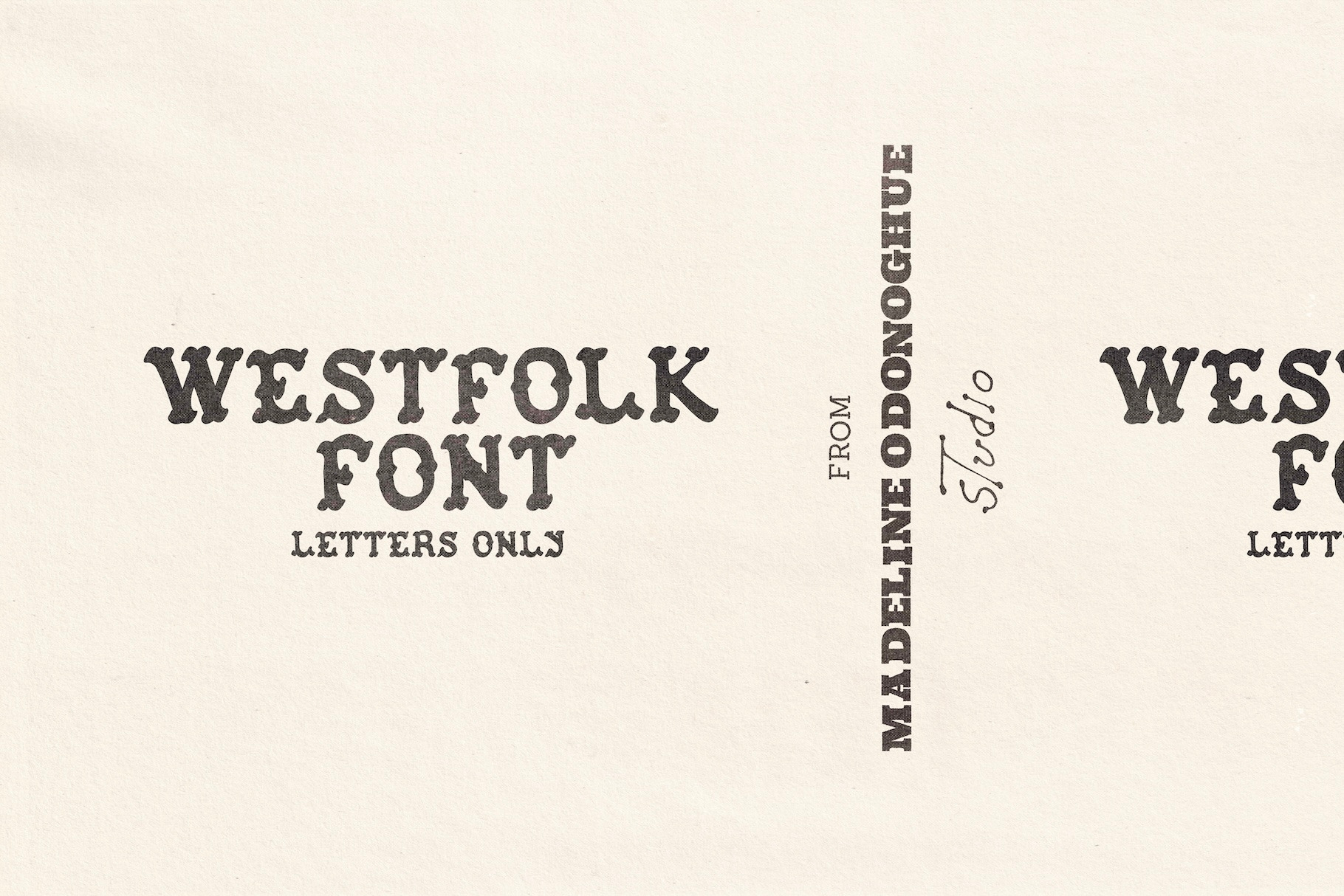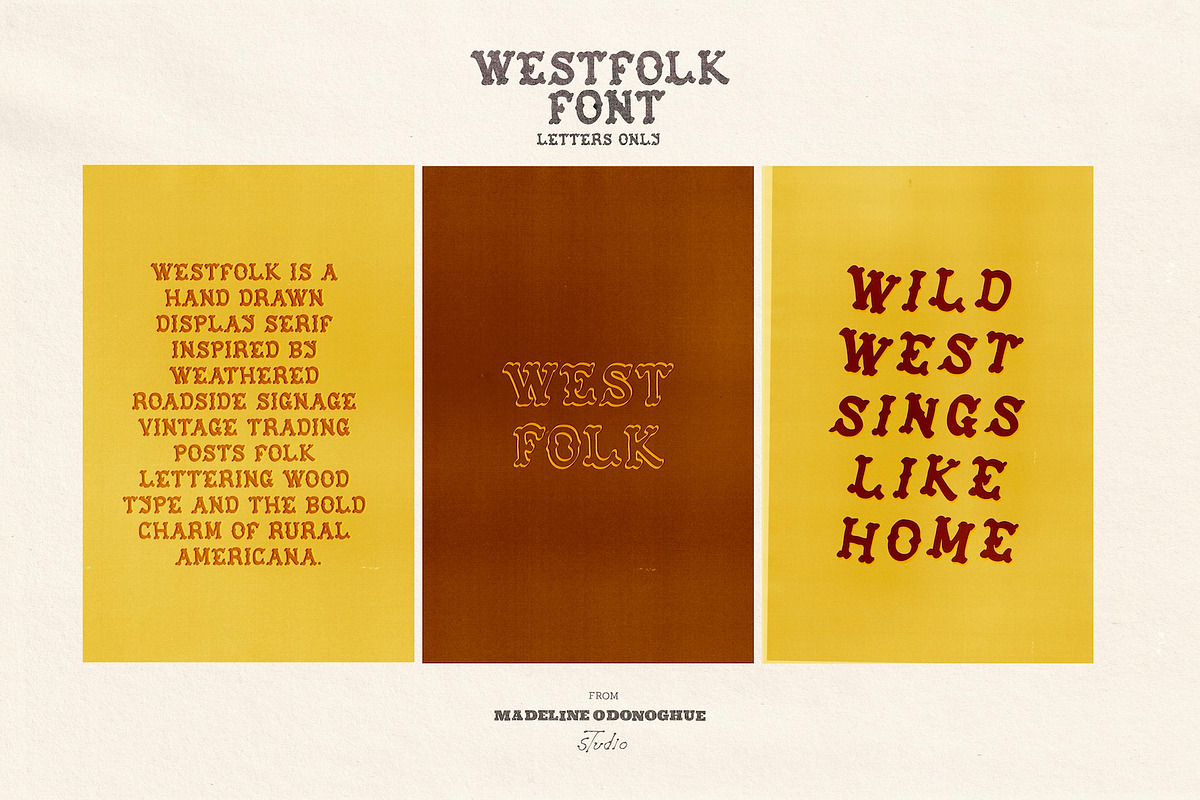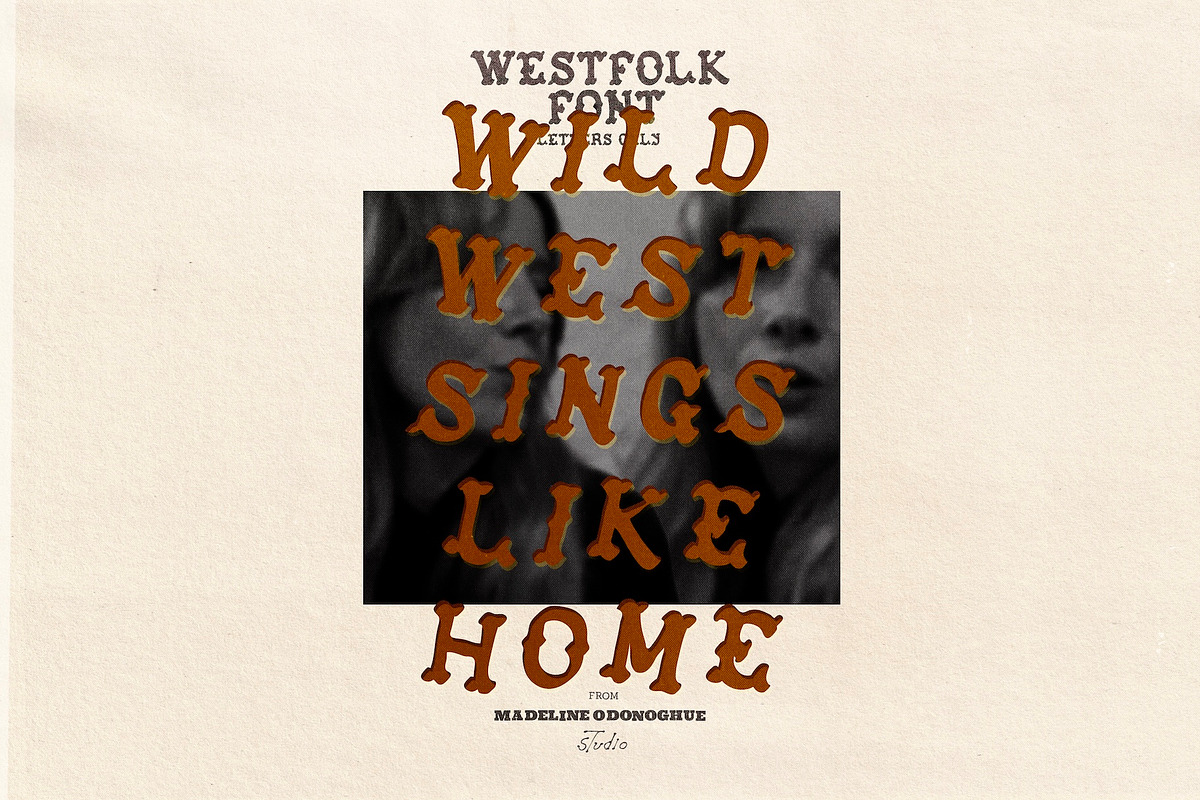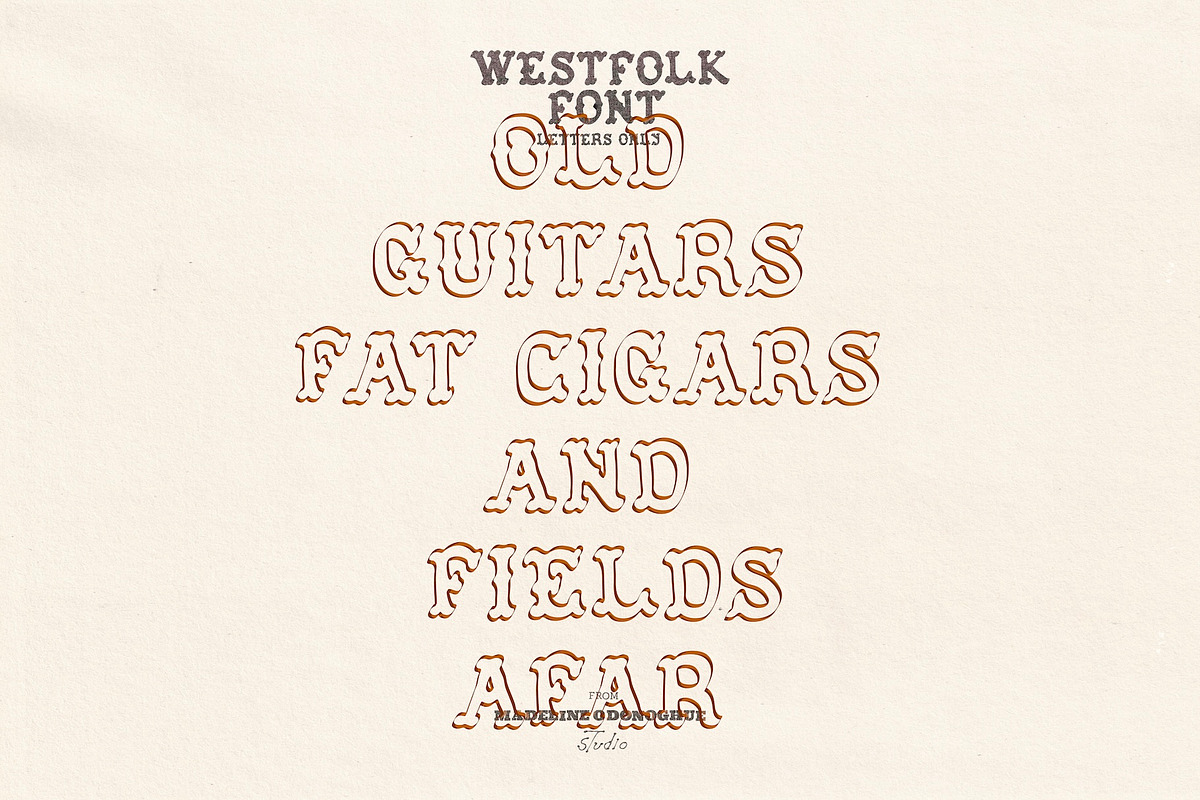
WestFolk | Hand Crafted Font
WestFolk is a hand-drawn Western display serif inspired by vintage wood type, weathered roadside signage, old trading posts and the timeless character of rural Americana. Every letter embraces subtle imperfections, softened serifs and an organic rhythm that gives the typeface warmth, personality and a distinctly human feel.
Designed for bold branding and expressive typography, WestFolk includes two styles within a single font file. The uppercase characters are solid filled letterforms, while the lowercase keys contain matching outlined versions of those same capitals, allowing you to mix and layer styles to create logos, posters and eye-catching headlines.
WestFolk is perfect for designers looking for an authentic handcrafted Western font with a modern, versatile feel.
Branding & Logos
Coffee Roasters & Cafés
Breweries & Food Packaging
Apparel & Merchandise
Posters & Album Artwork
Editorial Design
Outdoor & Lifestyle Brands
Vintage & Americana Inspired Projects
Uppercase A–Z — Solid filled letterforms
Lowercase a–z — Matching outlined versions of the uppercase characters
Letters only
No numbers
No punctuation
Hand-drawn Western serif
Vintage wood type inspiration
Solid & outline styles in one font
Easy to mix and layer
Perfect for bold display typography